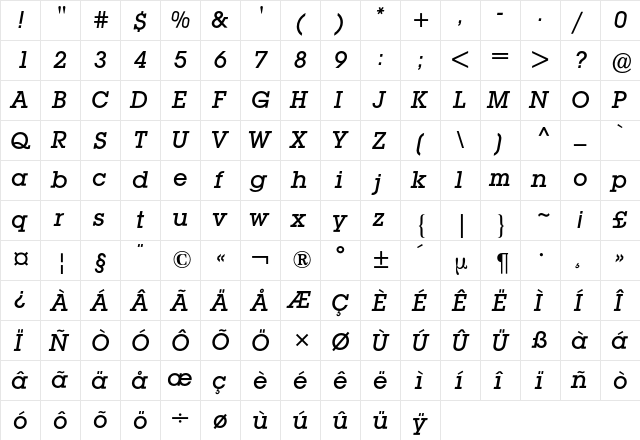
Lubalin BQ Regular
Design Context for Lubalin BQ Typeface
Lubalin BQ takes a measured approach to typography — its balanced proportions and neutral character make it a reliable workhorse for both digital and print work.
Pro Tip: Pair Lubalin BQ with a font of contrasting weight or personality to build a more expressive typographic hierarchy.